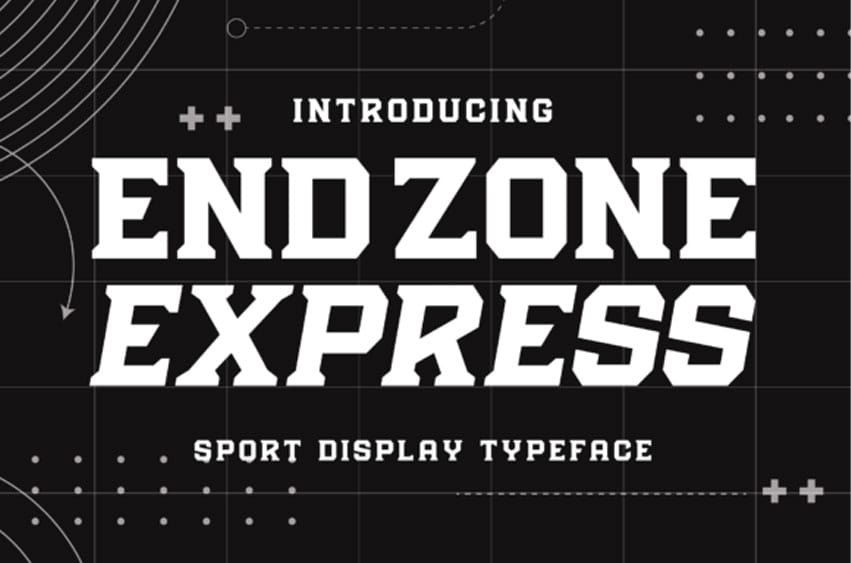
Endzone Express Font is the breathtakingly bold and stunning sport typeface that will leave you in awe. This font is a powerhouse of strength, exuding a thick and robust presence that commands attention.
Whether you’re designing team jerseys, creating motivational posters, or crafting sports-themed branding materials, Endzone Express delivers an unbeatable combination of style and intensity.